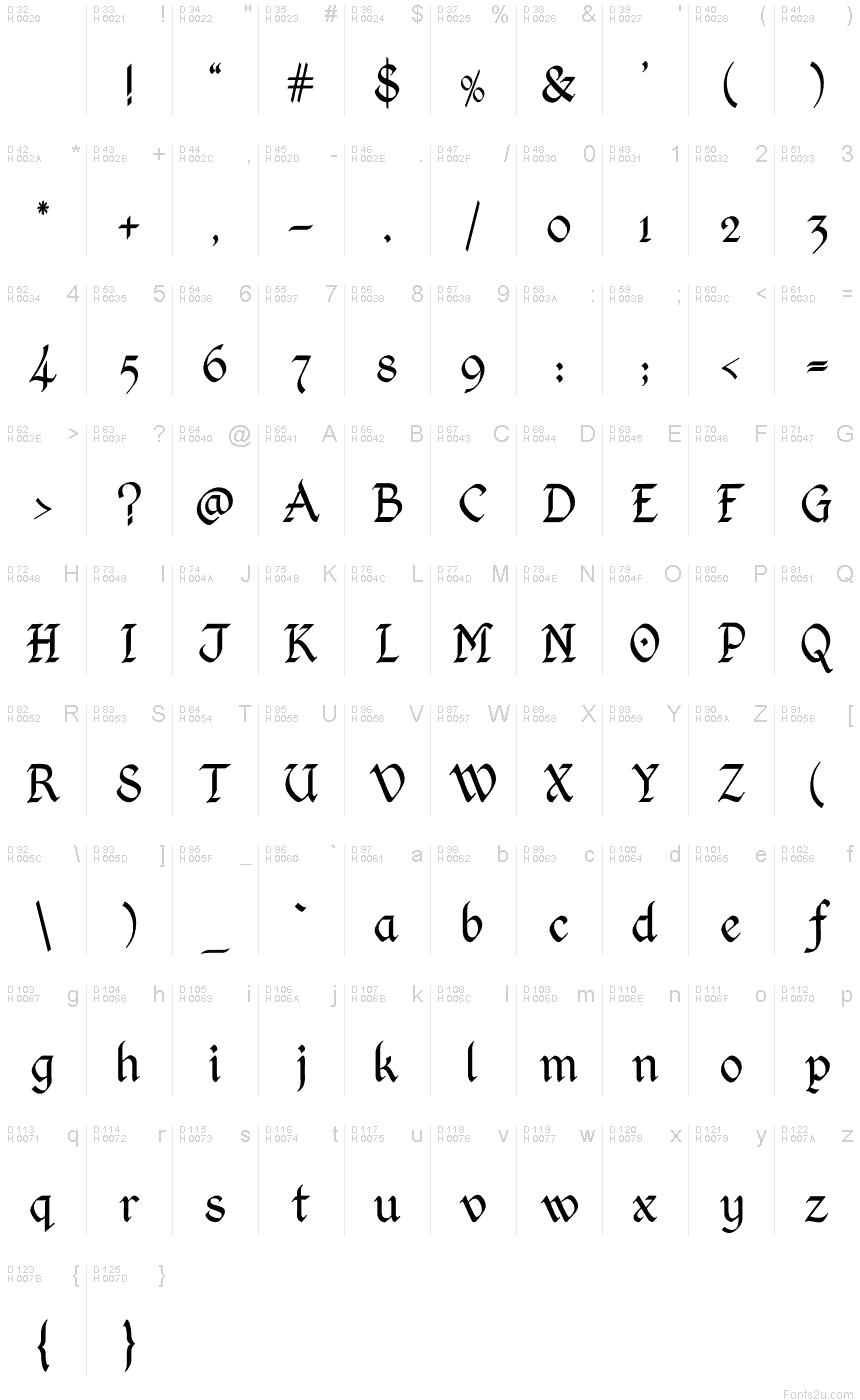
Kingthings Calligraphica Light
Kingthings Calligraphica Light font by Kevin King is a free calligraphic blackletter typeface. Its tall, slightly compressed letters, chiseled strokes, and inky wedges give every word the weight of something hand-drawn with a broad nib. The texture feels ceremonial without being stiff, so it brings a touch of old-world drama while still staying readable in short phrases and headings.
Using Kingthings Calligraphica Light, you can give fantasy book covers, game titles, event posters, pub signage, certificates, and theatrical branding a richly medieval voice. This free font works beautifully when set large and generously spaced, then paired with a simple sans serif for supporting text to keep layouts balanced and modern.